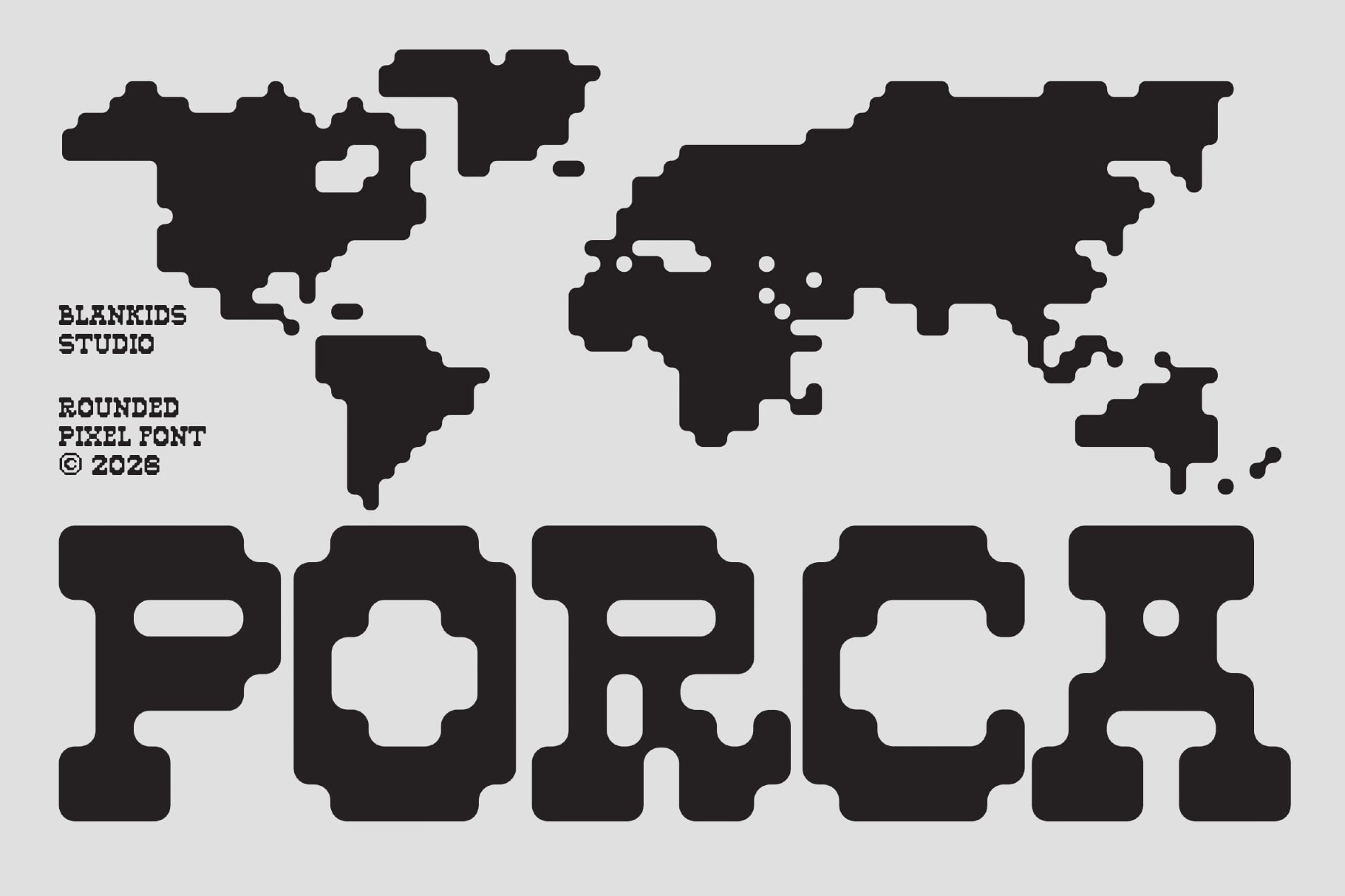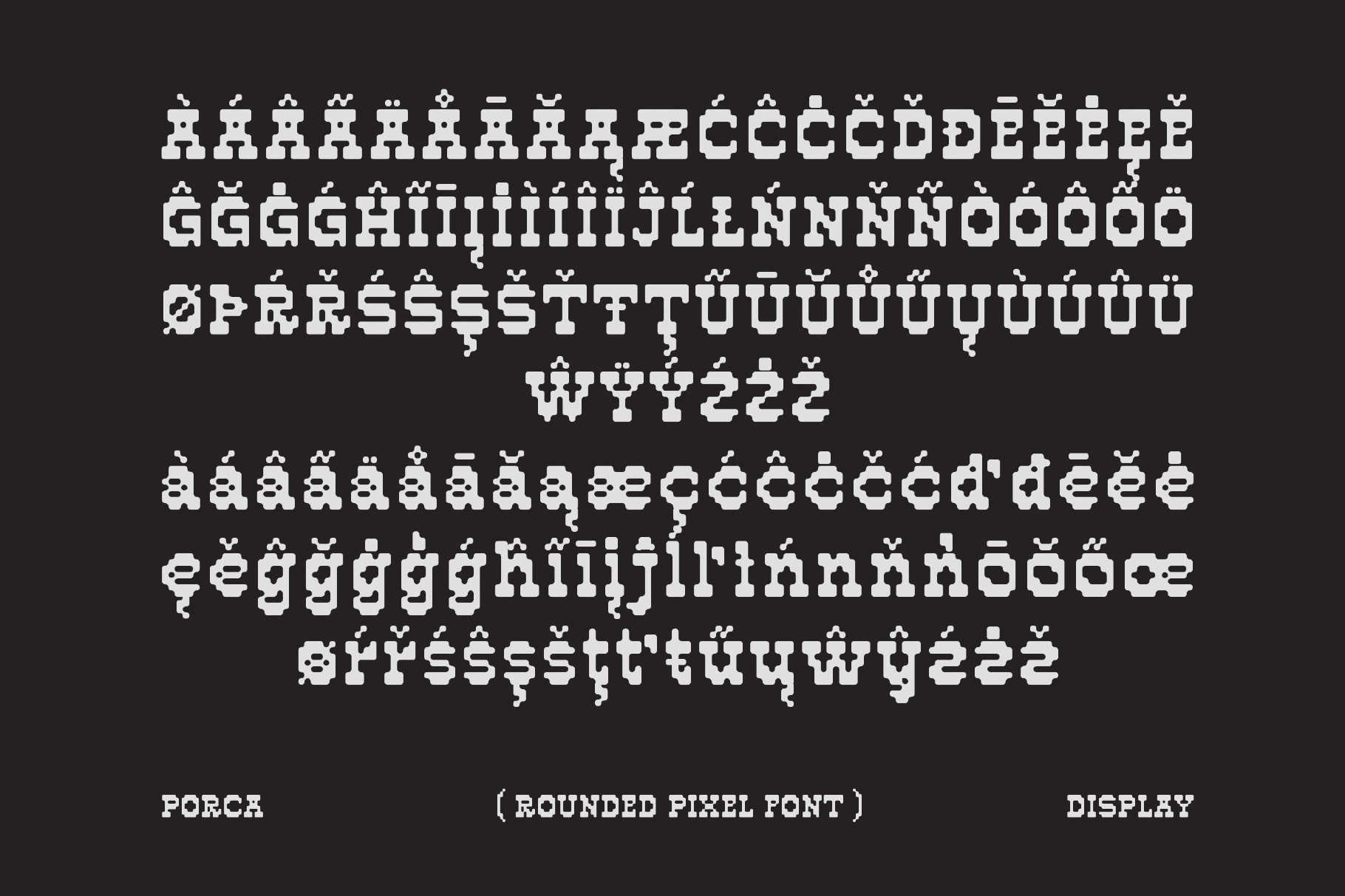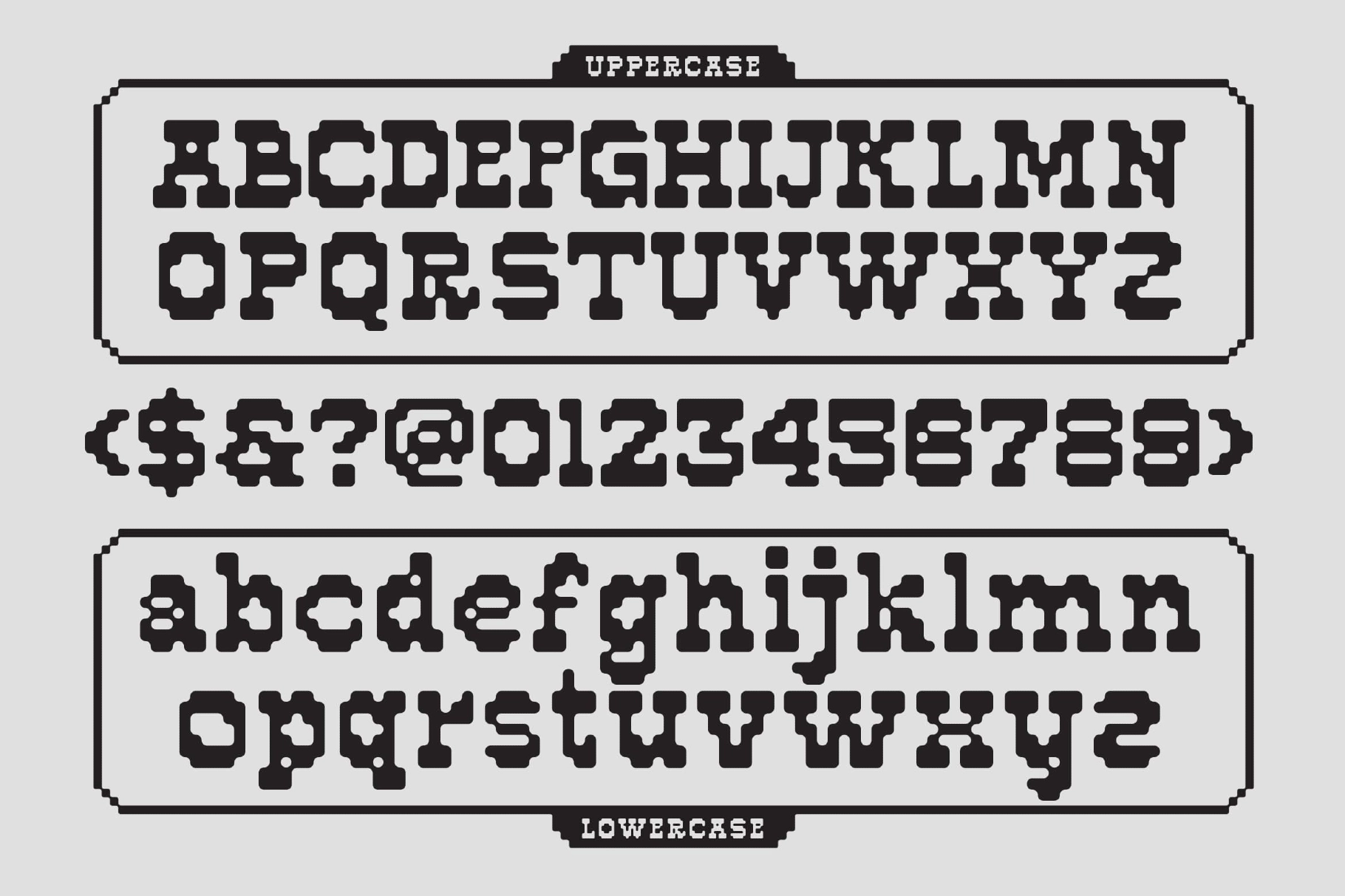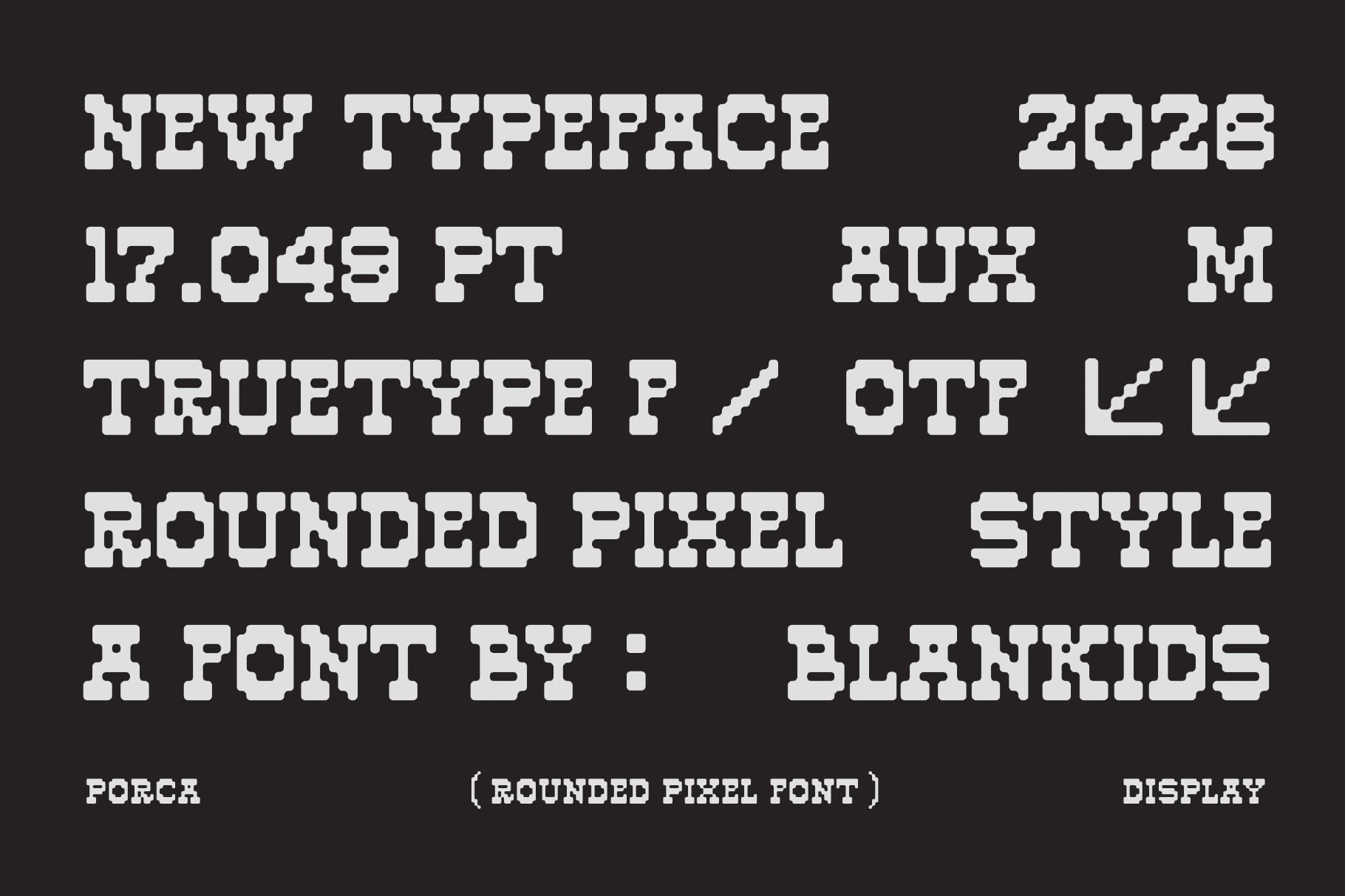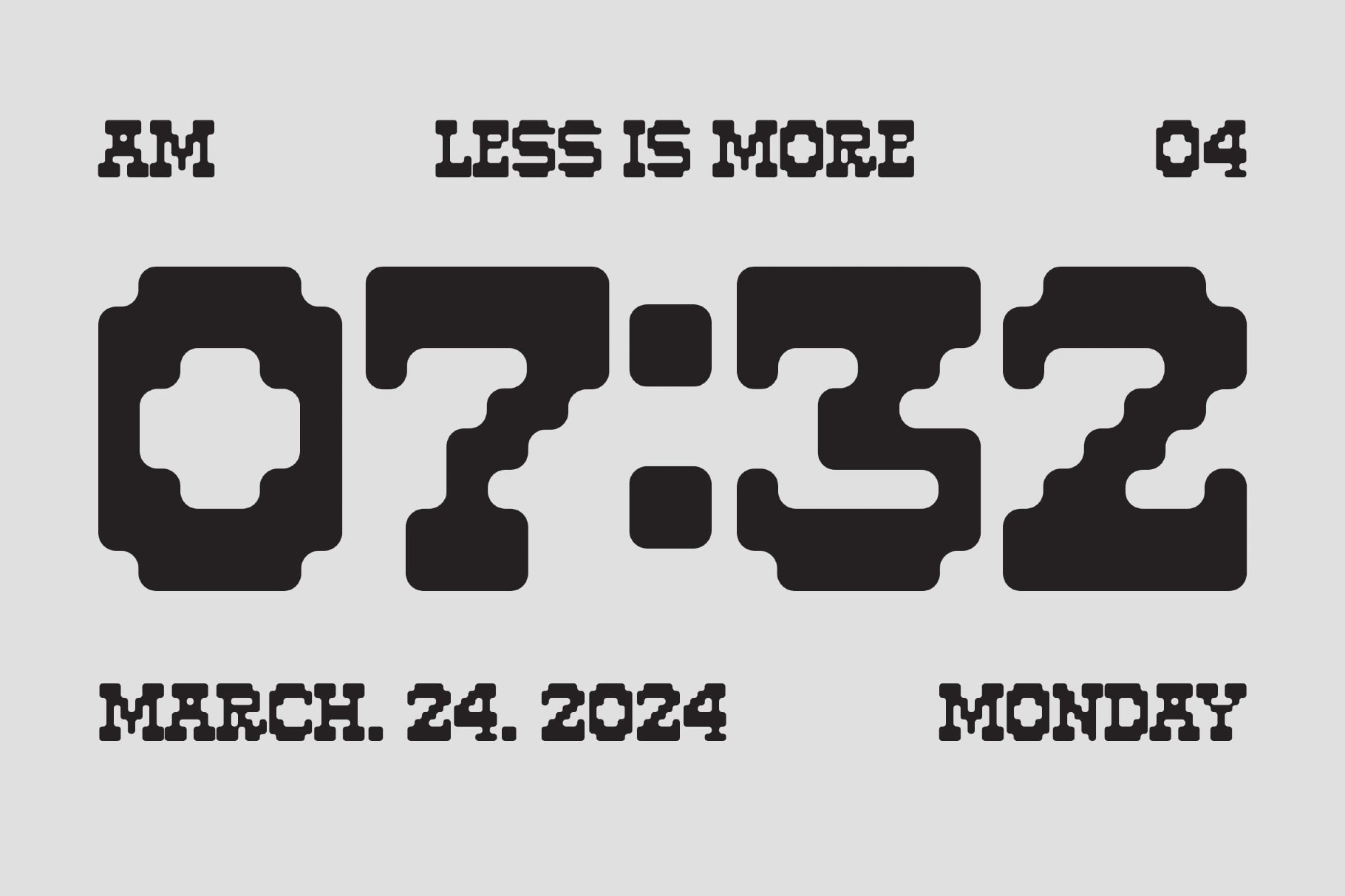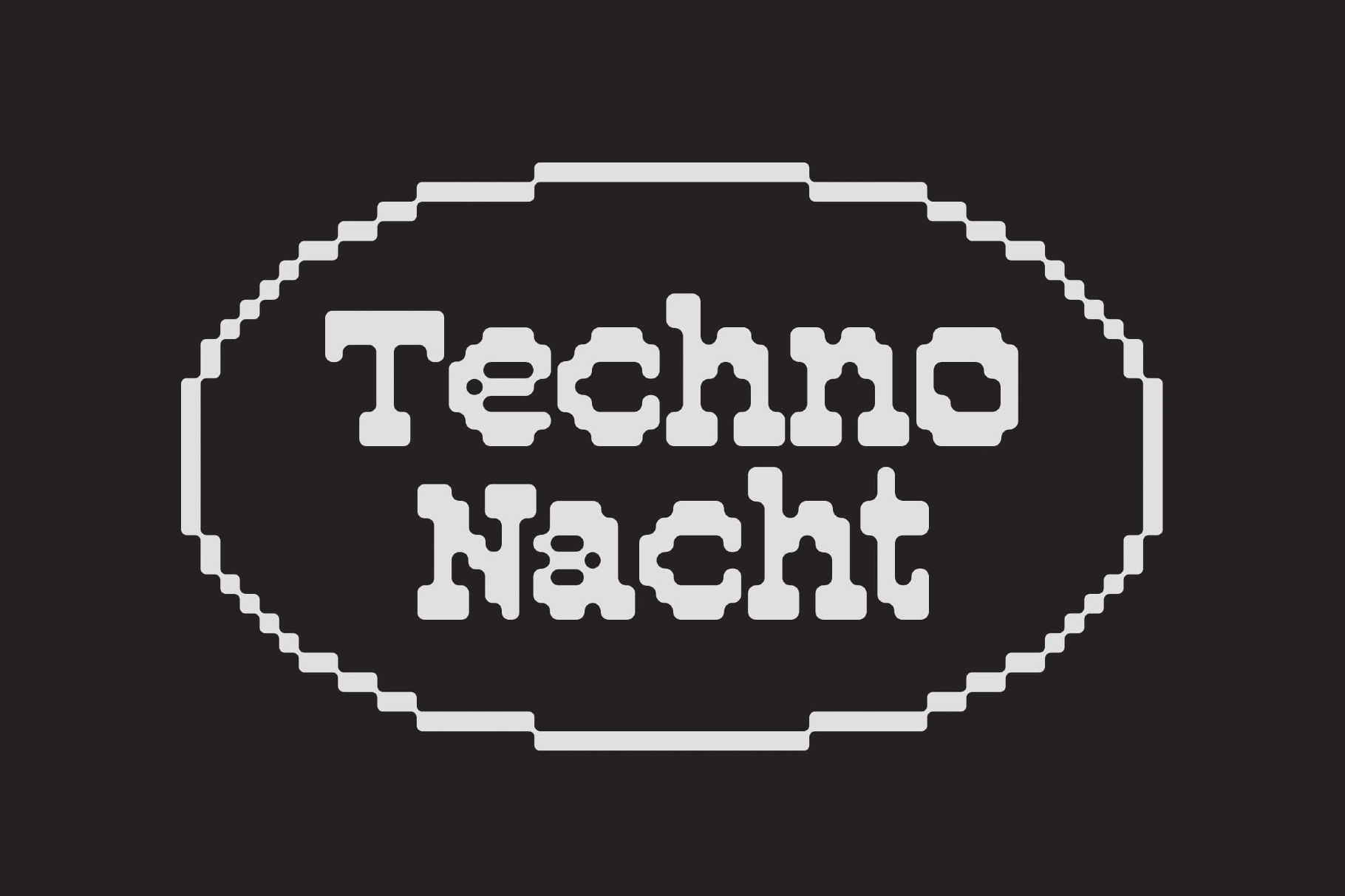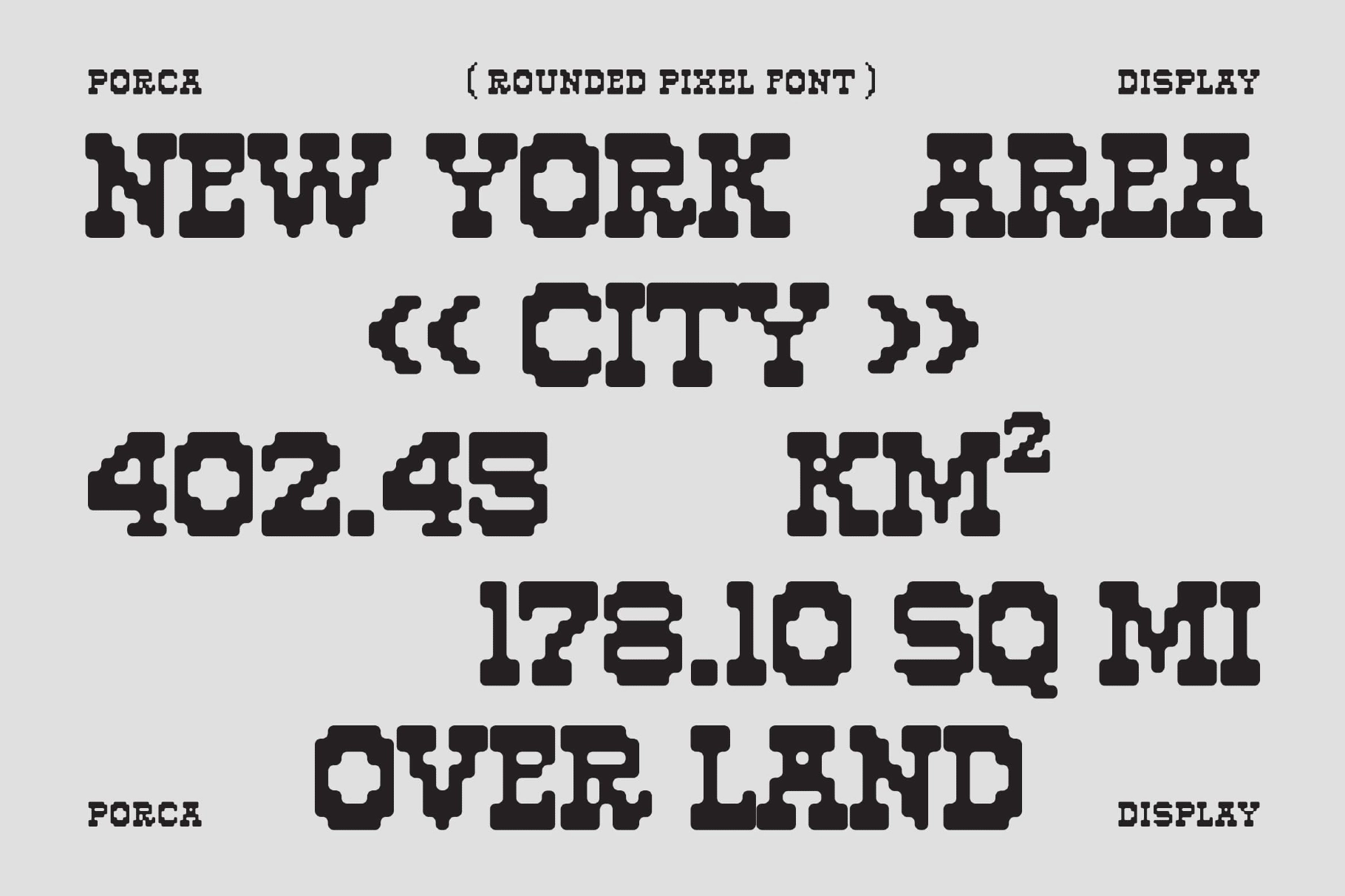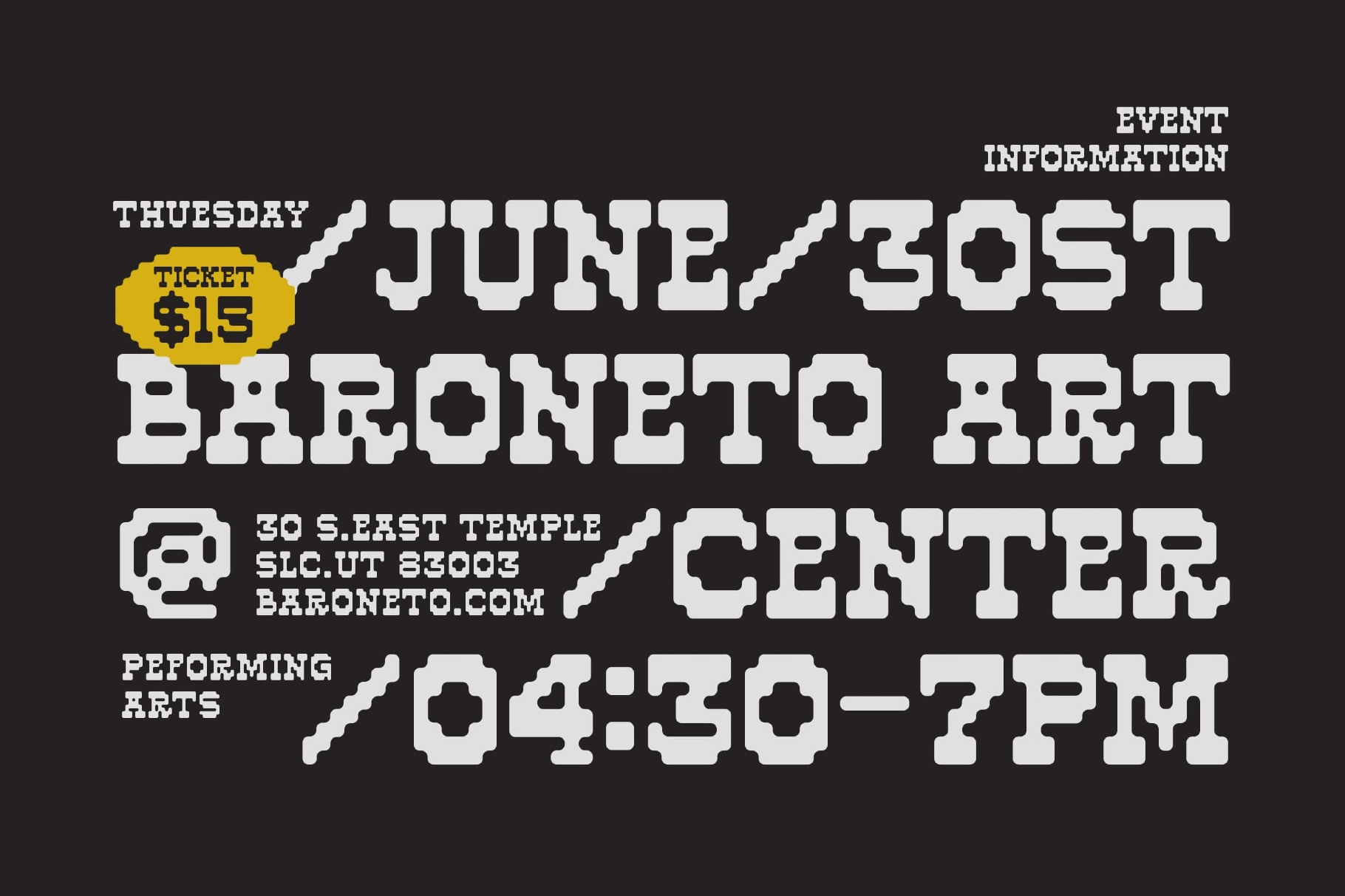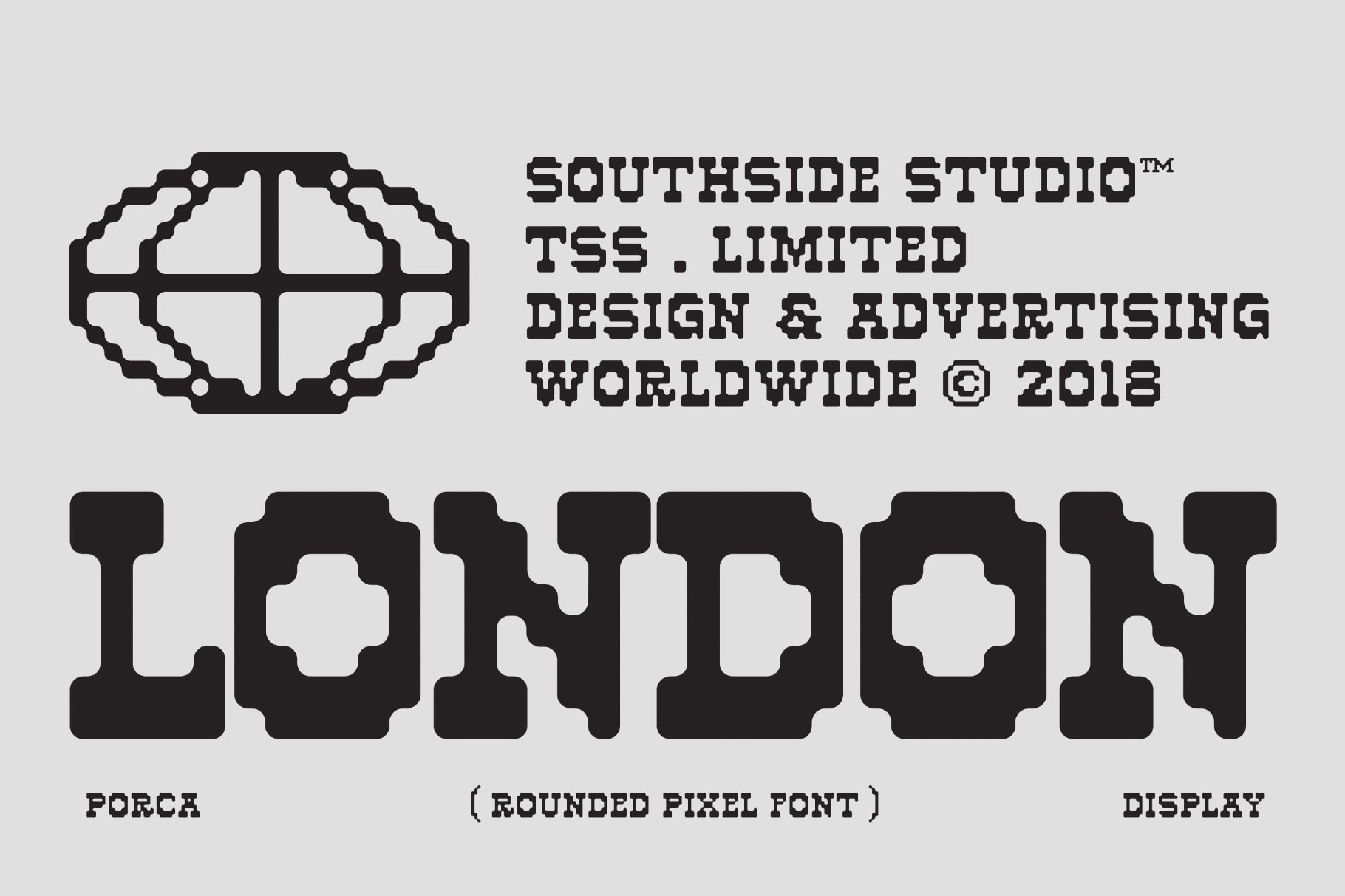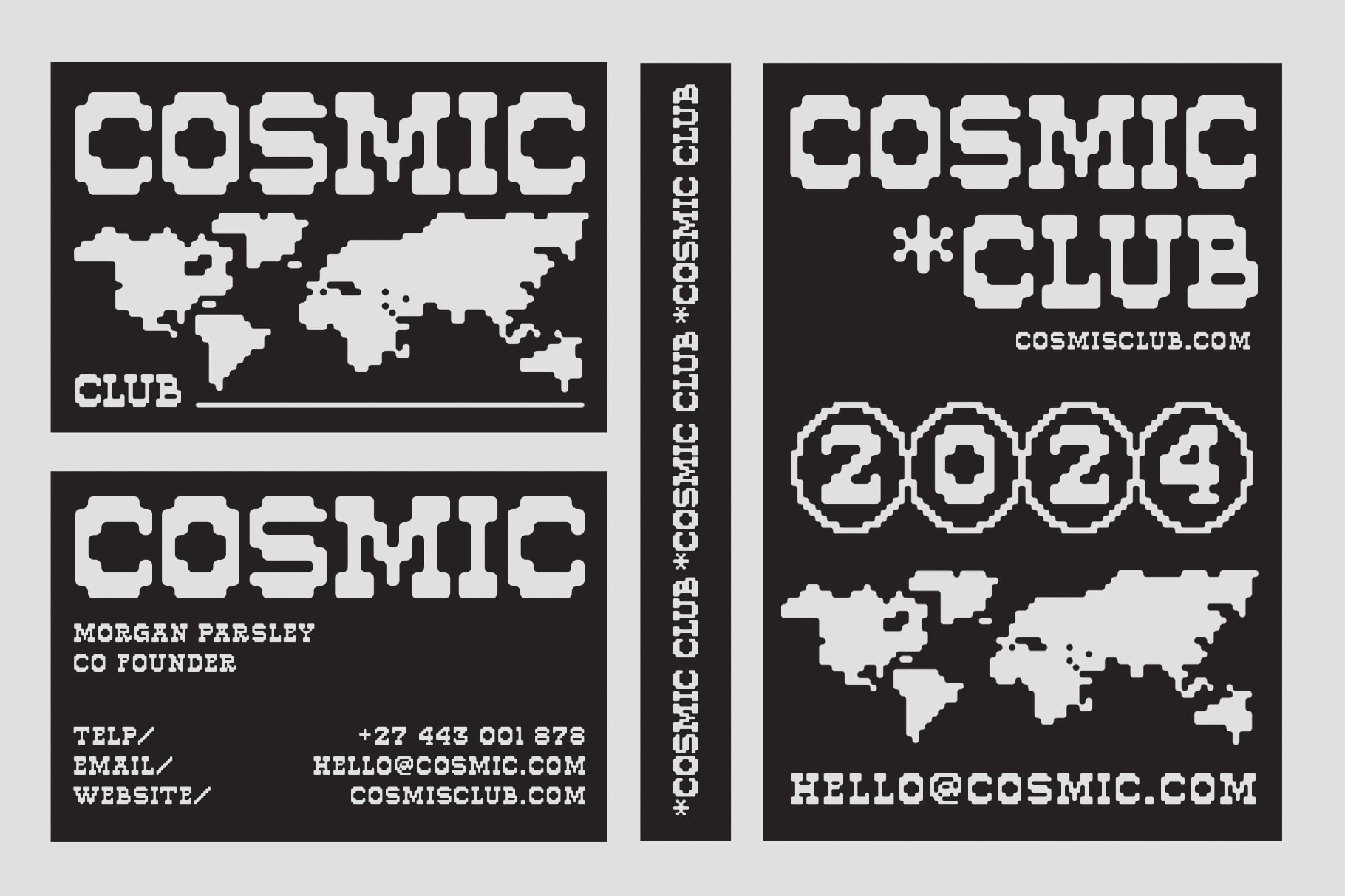
Porca - Rounded Pixel Display Font
This pixel display font is chunky, rounded, and packed with old-school arcade charm. Its soft block shapes and bitmap rhythm give titles a playful retro look, made for graphics that need instant character without losing clarity.
Porca works for gaming logos, event posters, arcade-inspired branding, streetwear graphics, merch prints, stickers, packaging labels, digital banners, social media artwork, toy branding, editorial headers, and retro tech visuals. The regular and outline styles make it easy to create bold title systems, layered lettering, and punchy compositions with a clean 8-bit attitude.